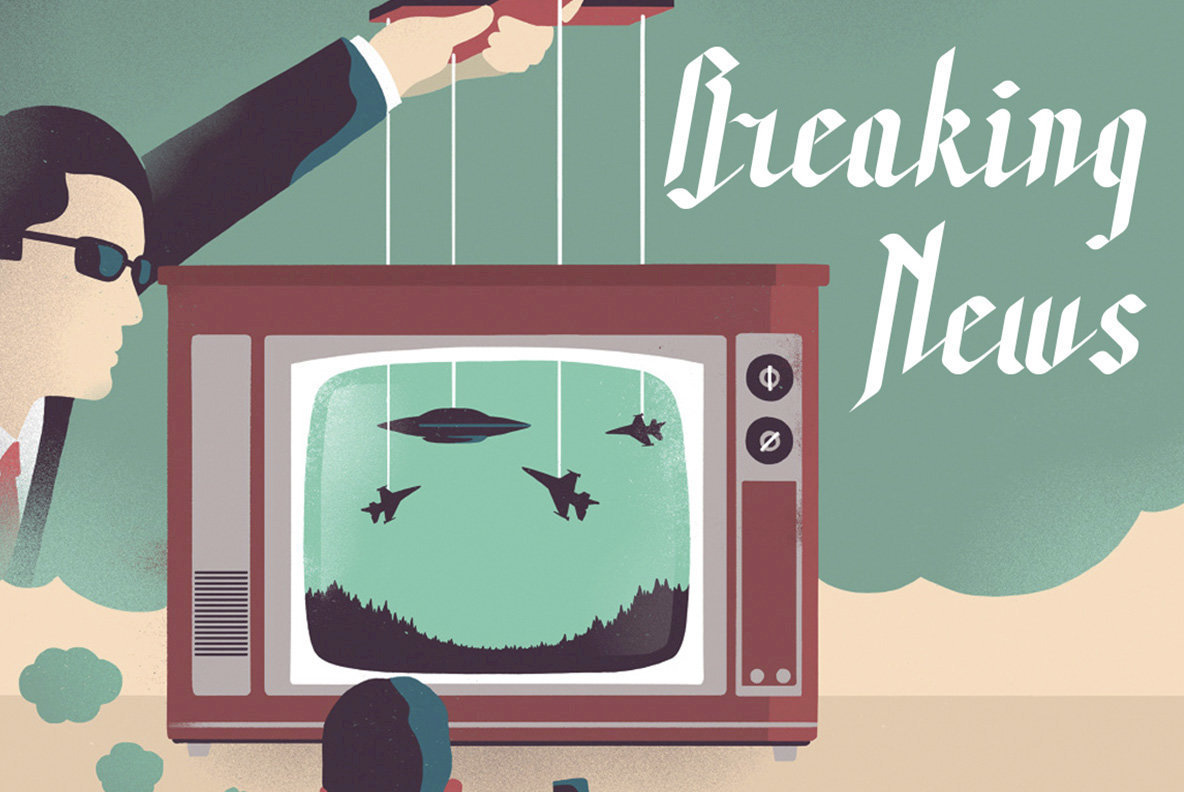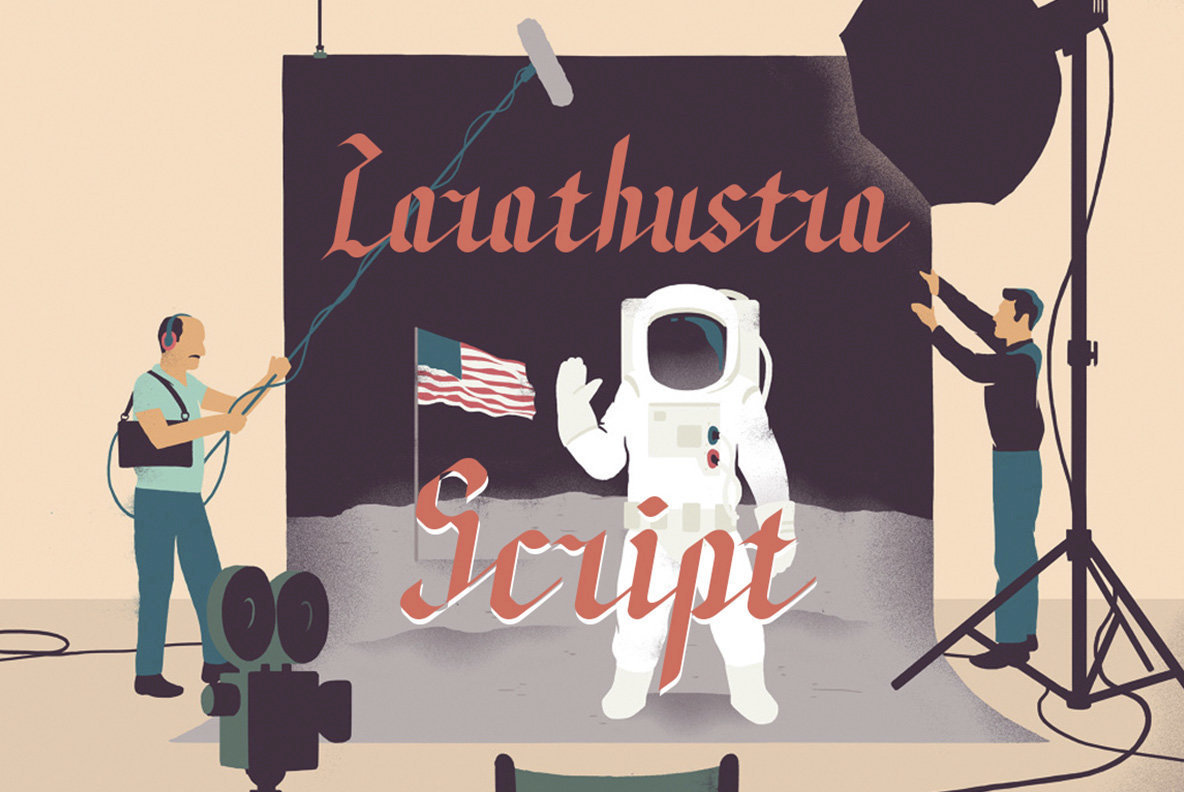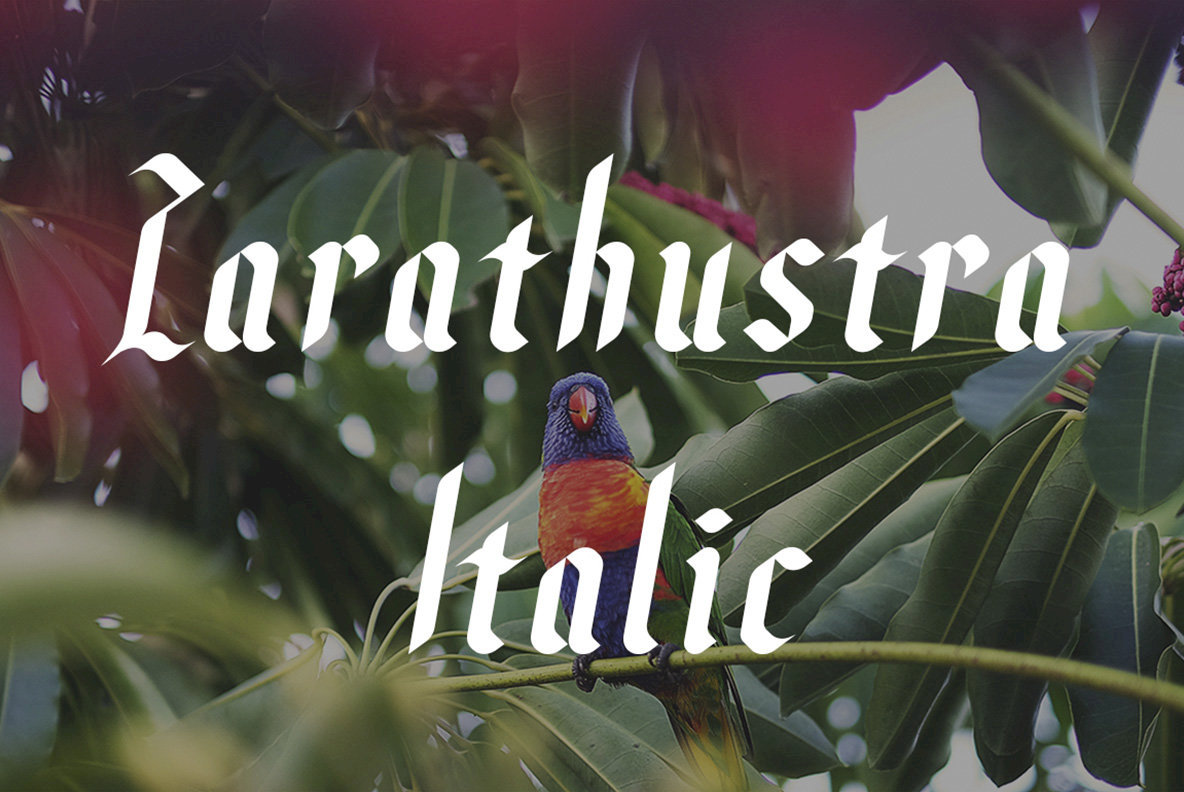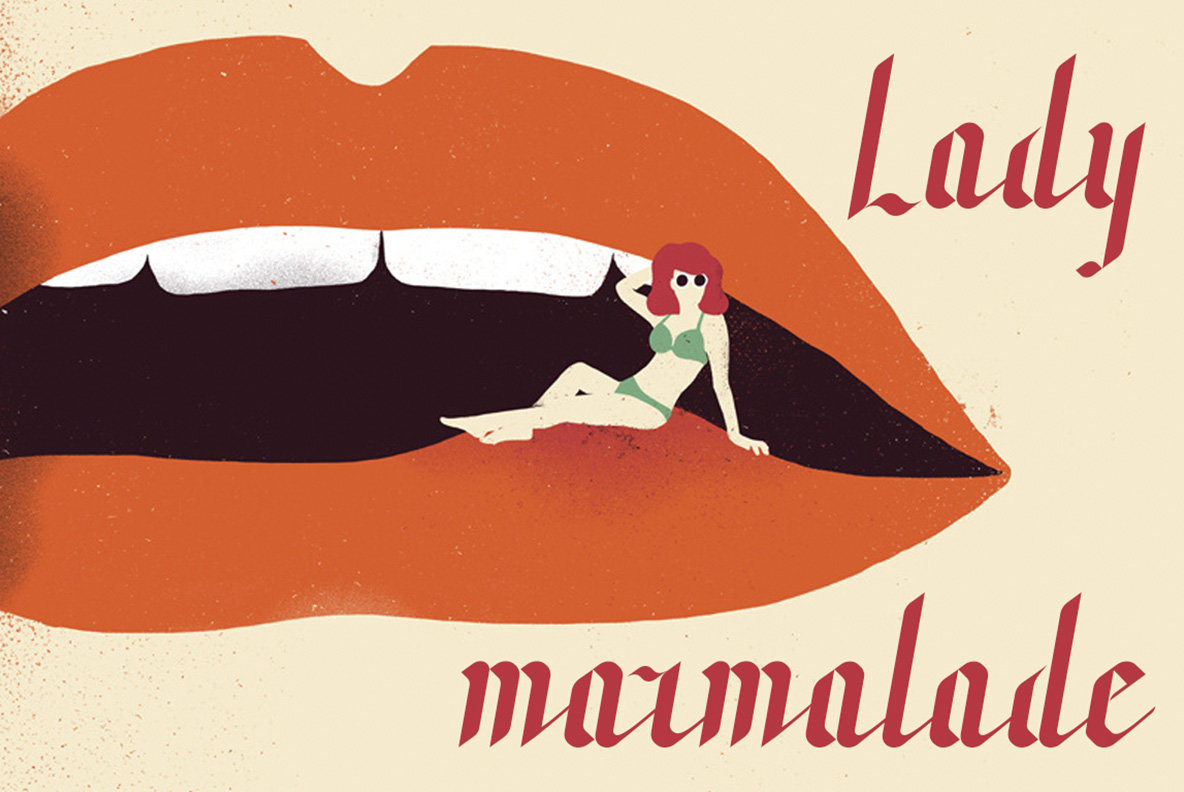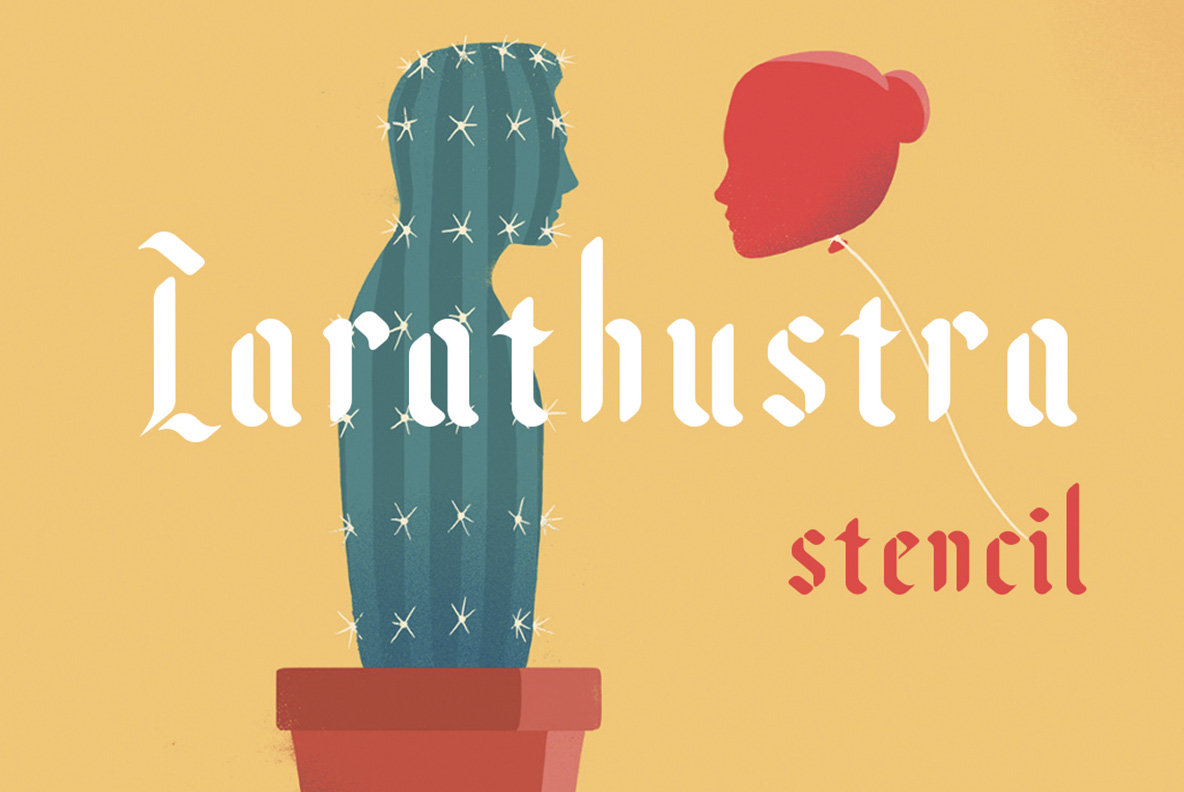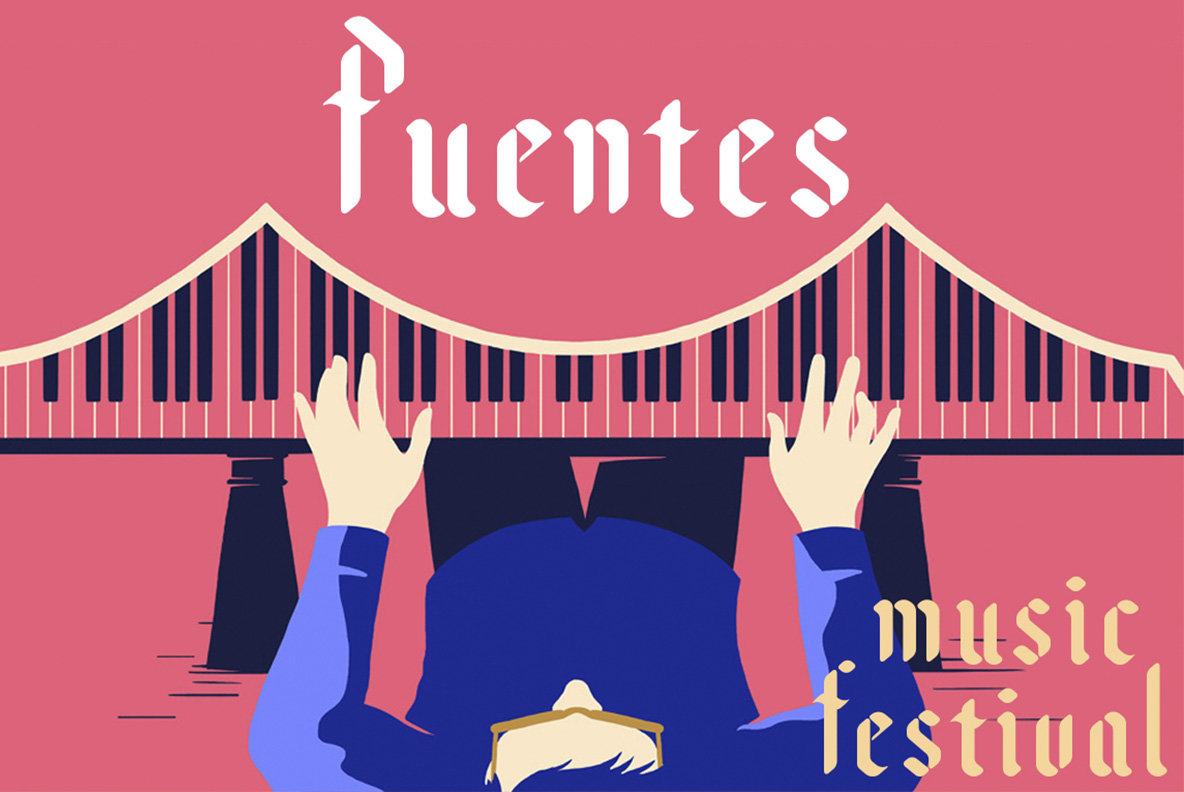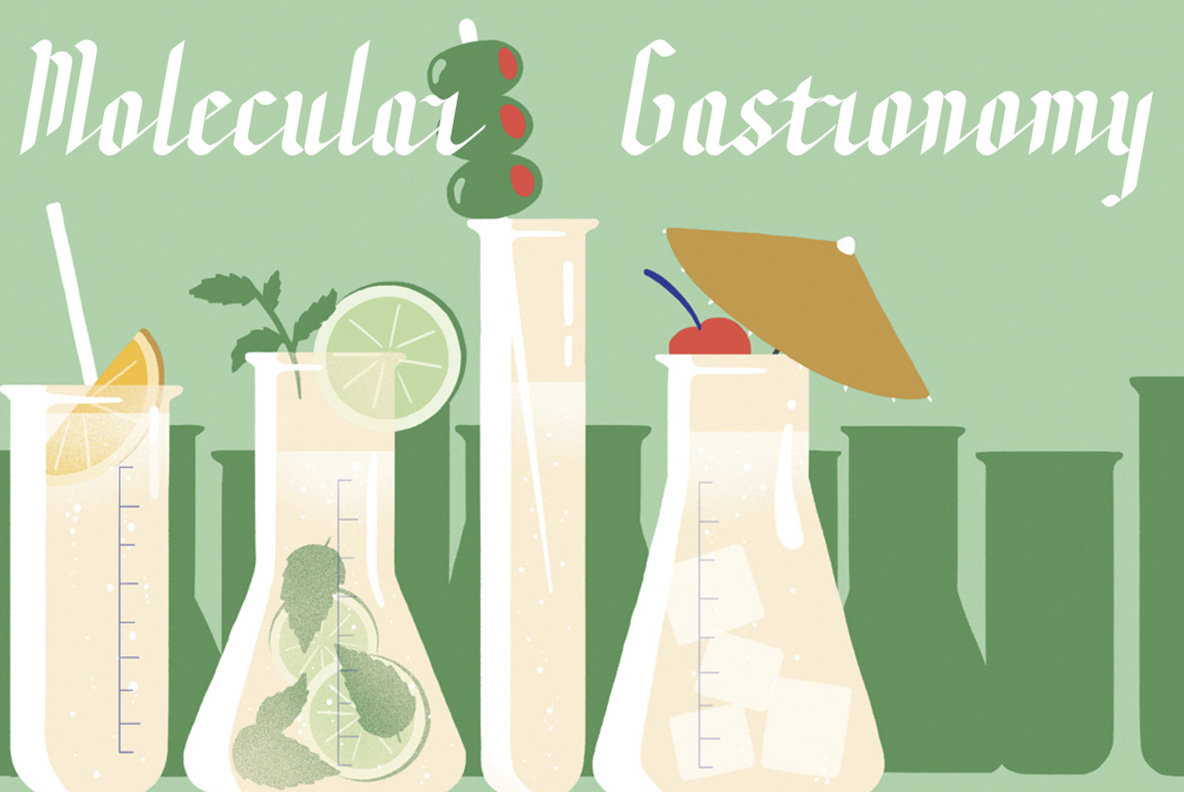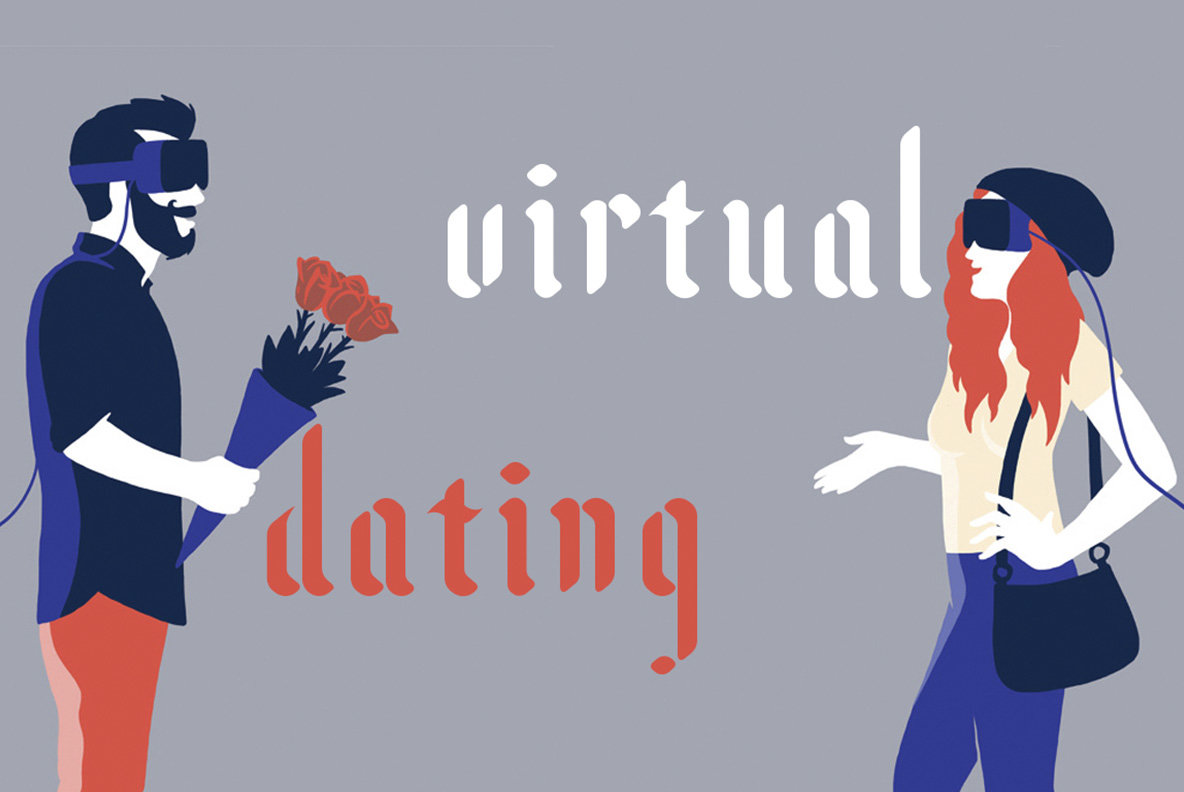
Zarathustra Font
Zarathustra presents a unique family of black lettered gothic fonts that bring forth a rich tapestry of history and tradition. Informed by the grandeur of middle age cathedrals and their intricate sculptures, this typeface seamlessly bridges the past with contemporary design needs. Developed by Etewut Foundry, Zarathustra offers robust multi-language support, making it an ideal choice for diverse typographic applications.Zarathustra: Gothic Charm with Historical Inspiration